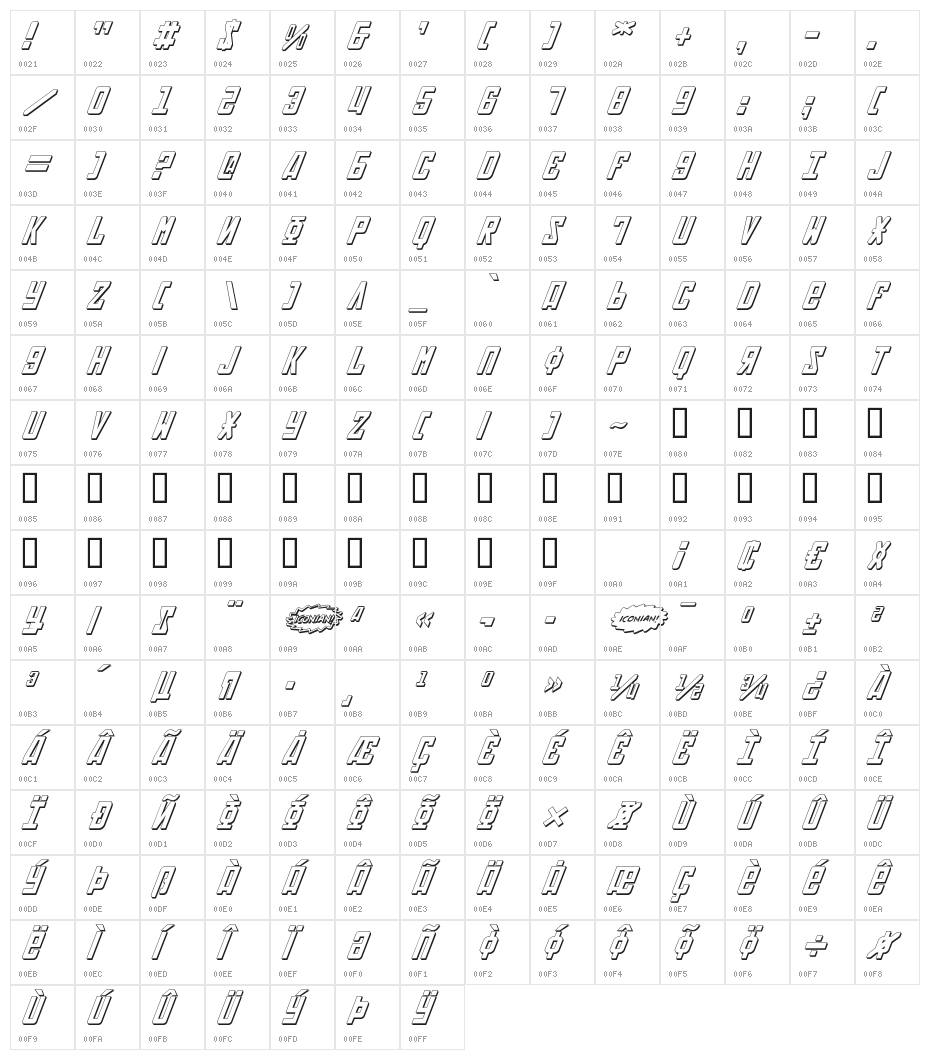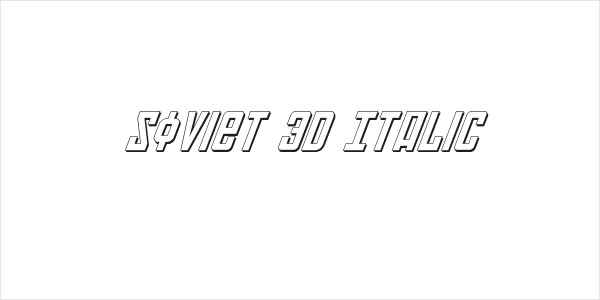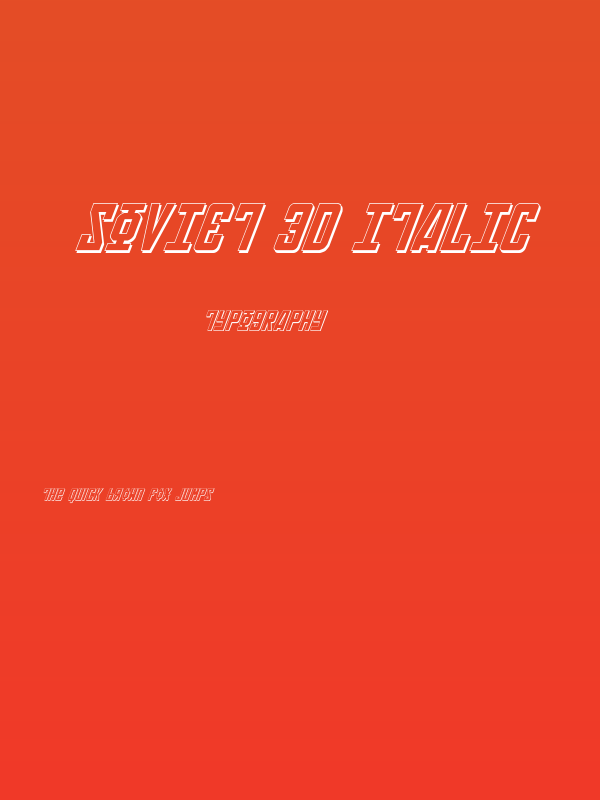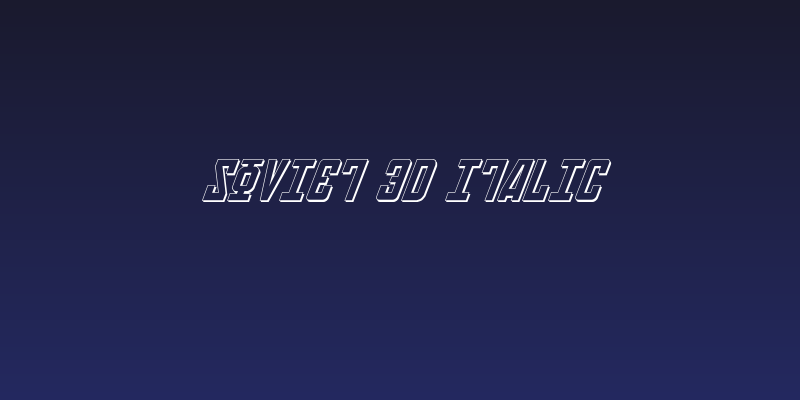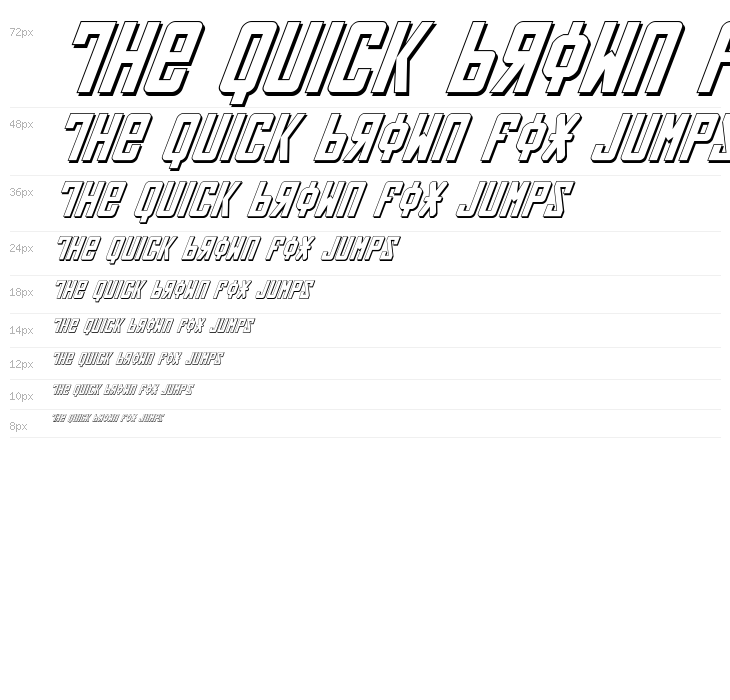
Soviet 3D Italic Font
Soviet 3D Italic Description
This font features a bold, three-dimensional design with an italic slant, giving it a dynamic and futuristic appearance. The characters are outlined, creating a sense of depth and movement. The angular and geometric shapes of the letters contribute to a modern and industrial aesthetic. The uppercase and lowercase letters maintain a consistent style, with sharp edges and a strong presence. The numerals and special characters are designed to match the overall theme, ensuring uniformity across all glyphs. This font is suitable for projects that require a bold and eye-catching display.